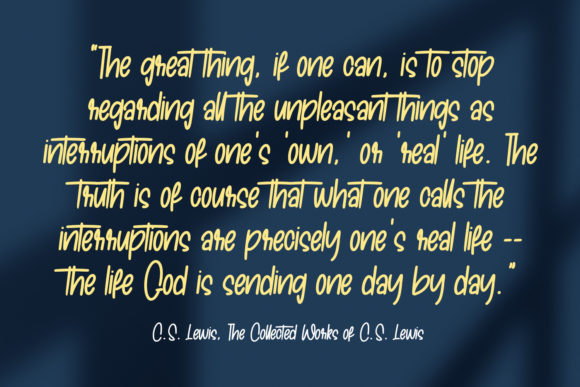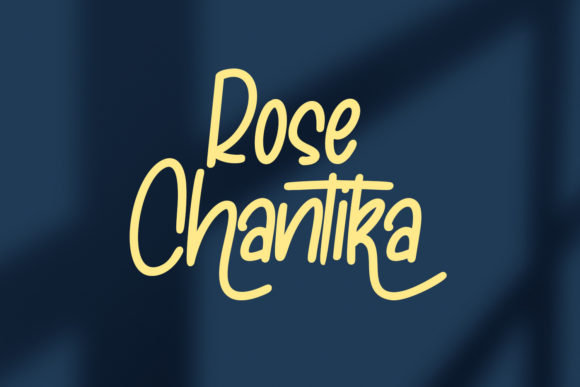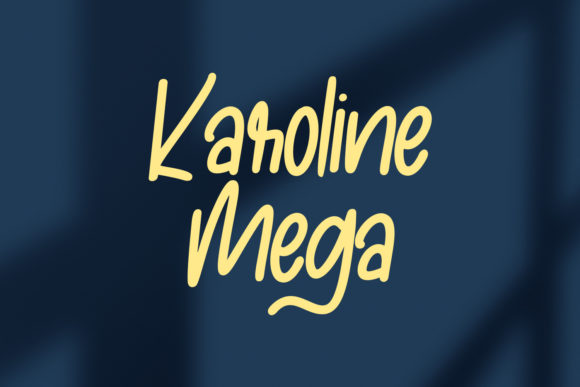
Introduction to Clockerts Font
Clockerts is a fancy, casual, and modern script font with a clean mono-line stroke, fun characters, ligatures, and alternates.
This font gives you extra creative work This font is good for logo design, Social media, Movie Titles, Books Titles, short text, even long text.
Key Features of Clockerts Font
Why Choose Clockerts Font?
Clockerts Font offers exceptional quality and versatility, making it a valuable addition to your design toolkit. Whether you’re creating for personal projects or commercial use, Clockerts Font delivers professional results.